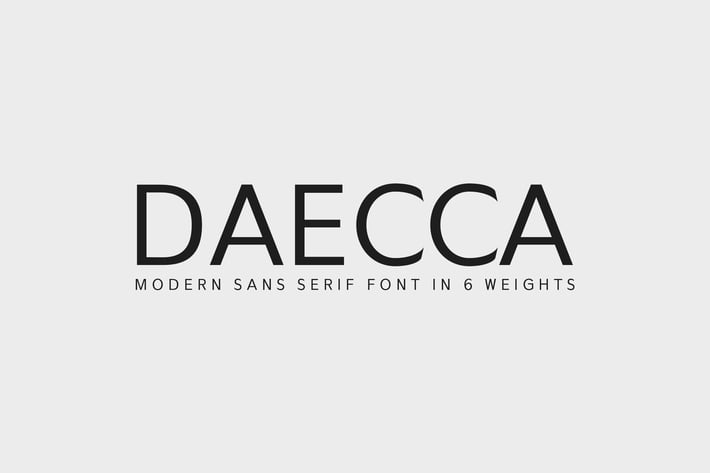
Daecca Sans Serif Font Family
Daecca is a modern and minimal rounded sans serif typeface. It comes with 4 weights: Regular, Round, Outline and Bold versions, which contains complete basic glyphs with multilingual support. Daecca will be perfect for packaging, presentations, logo, headlines, lettering, posters, branding, quotes, titles, magazines headings, web layouts, advertising, invitations, packaging design, books, and nearly any creative design.
- Font Weight: Regular, Round, Outline and Bold
Daecca Font Features:
- Uppercase Letters
- Lowercase Letters
- Non English Characters ( Latin Supplement + Latin Extended A)
- ABCDEFGHIJKLMNOPQRSTUVWXYZ
- abcdefghijklmnopqrstuvwxyz
- 0123456789
- !"#$%&'()*+,-./:;=?@‰[]^_`{|}~ ¡¢«¬´·»¿–—‘’“”†‡•…‰‹›⁄€−∕∙ˆˇˉ˘˙˚
- ȦÀÁÂÃÄÅÇÈÉÊËÌÍÎÏÑÒÓÔÕÖØÙÚÛÜÝÞàáâãäåçèéêëìíîïñõóôõö
- øùúûüýþÿĀāĂ㥹ĆćĈĊċČčĎďĐđĒēĔĕĖėĘęĚěĜĞğĠġĤĨĩĪīĬĭİıĴĺĽ
- ľŁłŃńŇňŌōŎŏŔŕŘřŚśŜŞşŠšŤťŨũŪūŬŭŮůŴŶŸŹźŻżŽžẀẂẄẼỲ
- ǫɢɪɴʀʏʙʜʟᴀᴄᴅᴇᴊᴋᴍᴏᴘᴛᴜᴠᴡᴢꜰꜱ